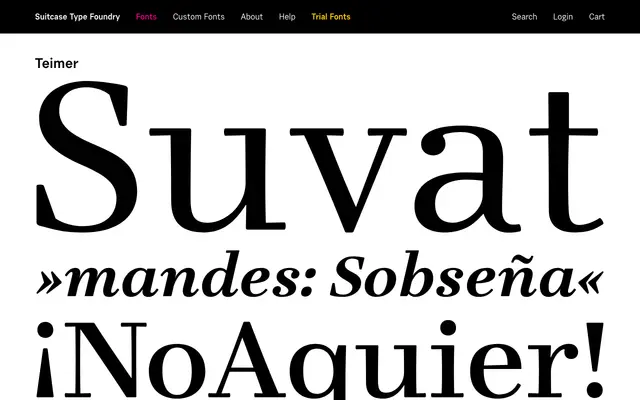
A serif typeface from Czech foundry Suitcase Type, with limited detail available from the product page.
Teimer is a serif typeface offered by Suitcase Type Foundry, a Czech studio known for considered text and display designs. The page provides minimal descriptive content, making detailed classification difficult. Further detail would be needed to fully assess its weight range, language coverage and intended applications.
The name and foundry context suggest a classical serif design; without additional detail, a transitional serif classification is the most defensible default for a text-oriented Suitcase Type release.